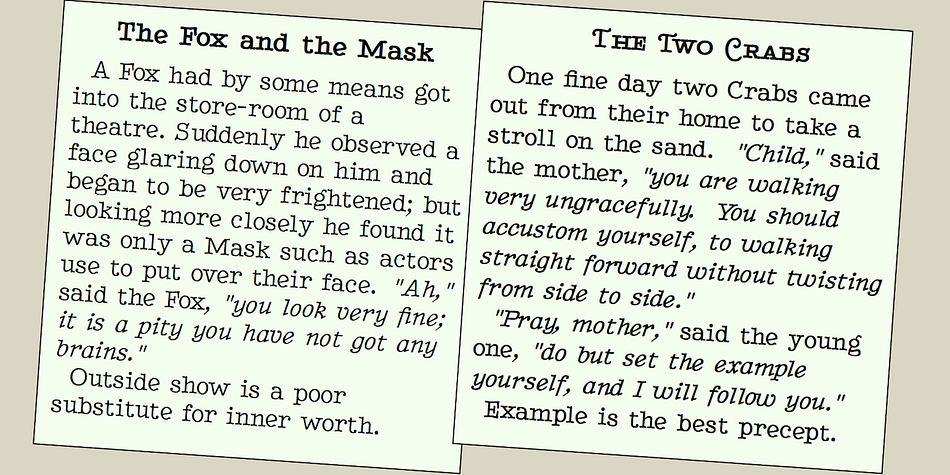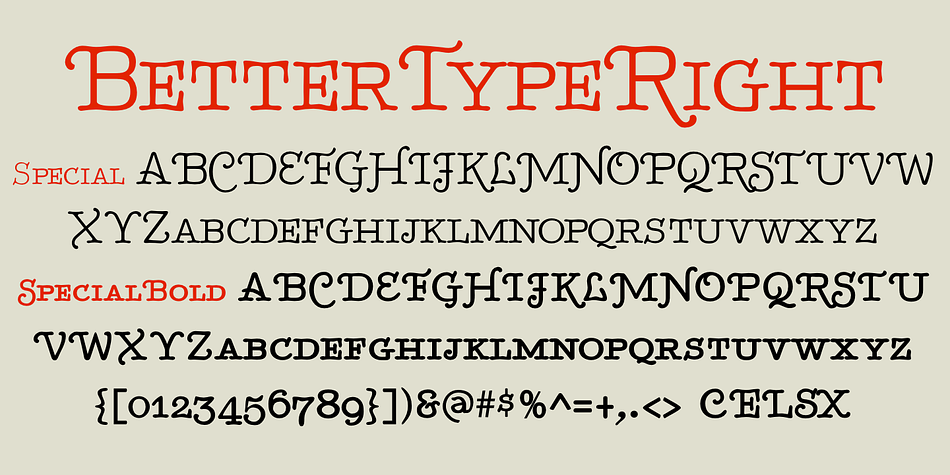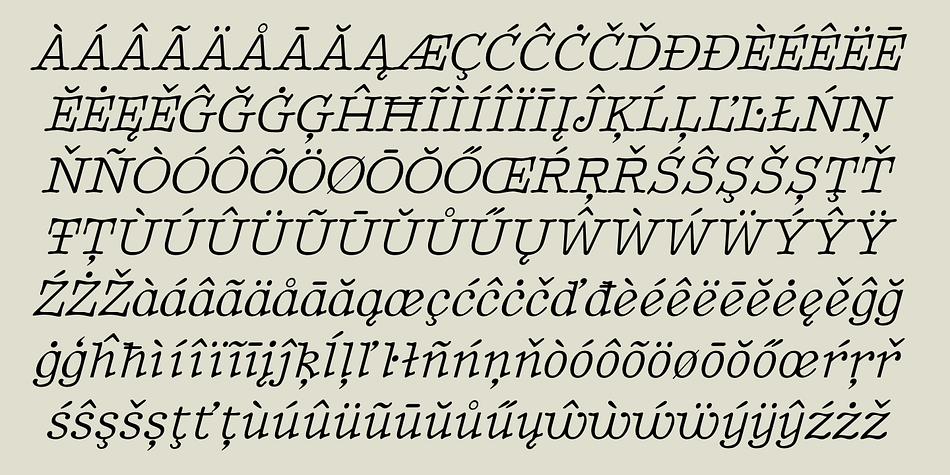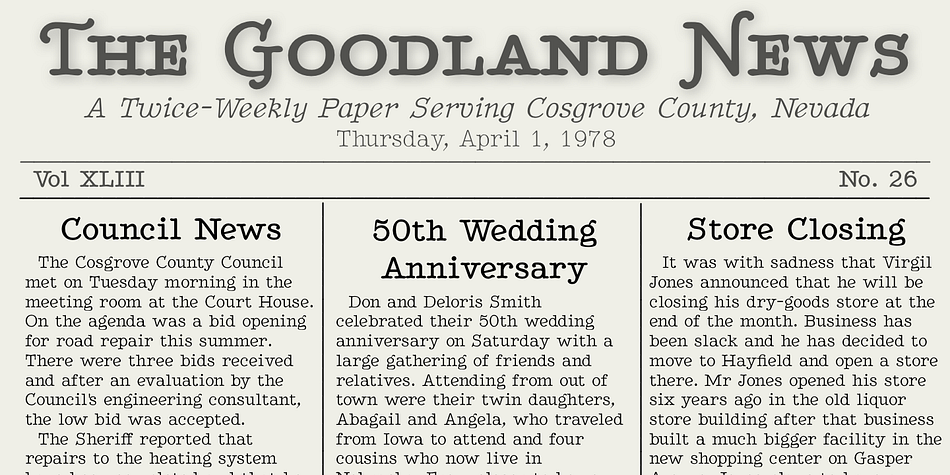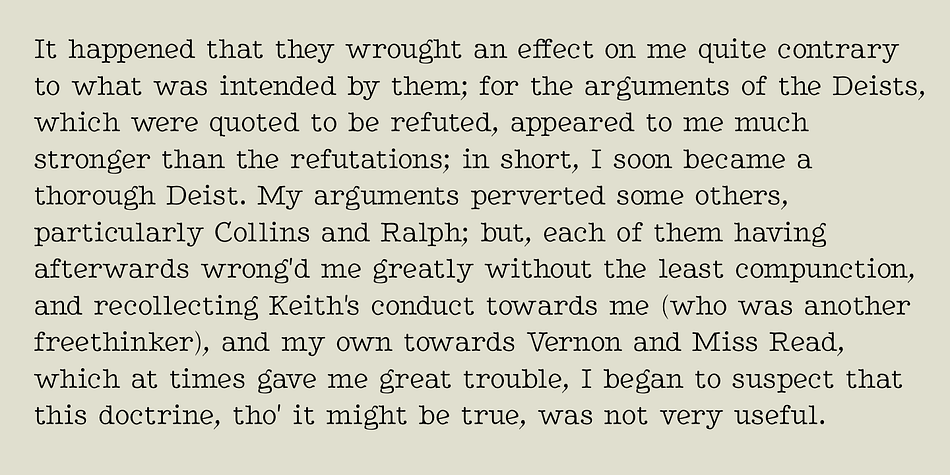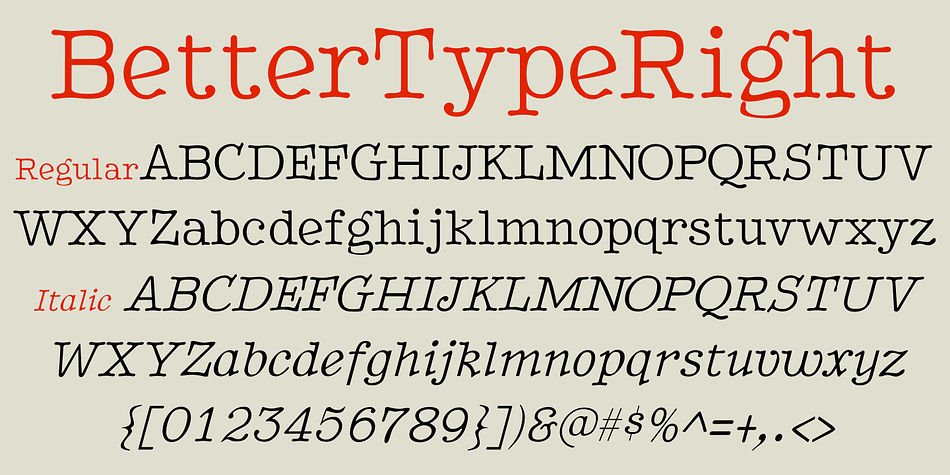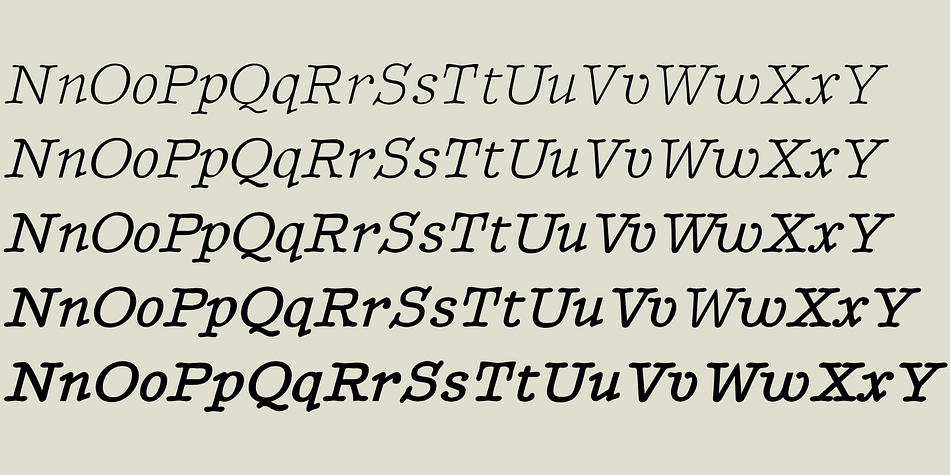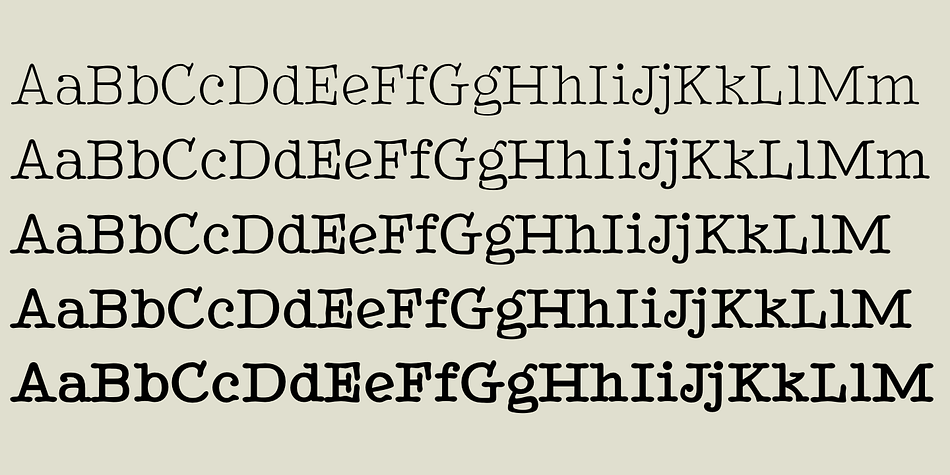
Designed by Robert Schenk, BetterTypeRight is a hand drawn and typewriter font family. This typeface has nine styles and was published by Ingrimayne Type.
BetterTypeRight has large serifs, a very high x-height, and little variation between horizontal and diagonal elements. It has the feel of a typewriter typeface, but it is not monospaced. The family includes swash/small-caps versions.